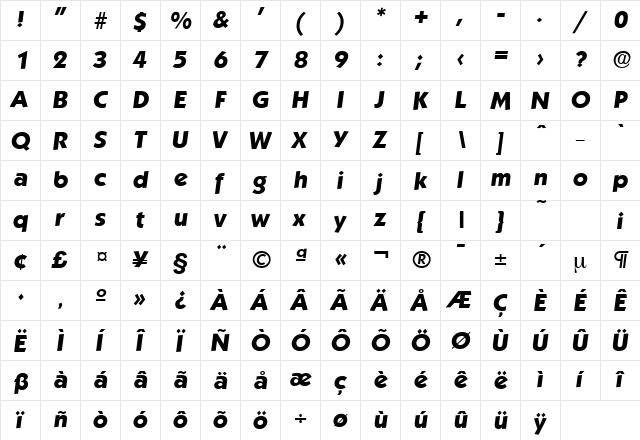
Koblenz-Serial-ExtraBold RegularItalic Font Preview
Design Context for Koblenz-Serial-ExtraBold Typeface
Koblenz-Serial-ExtraBold offers clean, dependable letterforms without strong stylistic allegiance, making it a practical choice for designers who need flexibility. The dynamic lean of this cut emphasises speed and emphasis in any layout. The heavy weight commands attention and anchors typographic hierarchies.
Pro Tip: Try Koblenz-Serial-ExtraBold for annotation and caption copy alongside an upright companion — the contrast in angle creates a dynamic but ordered typographic system.